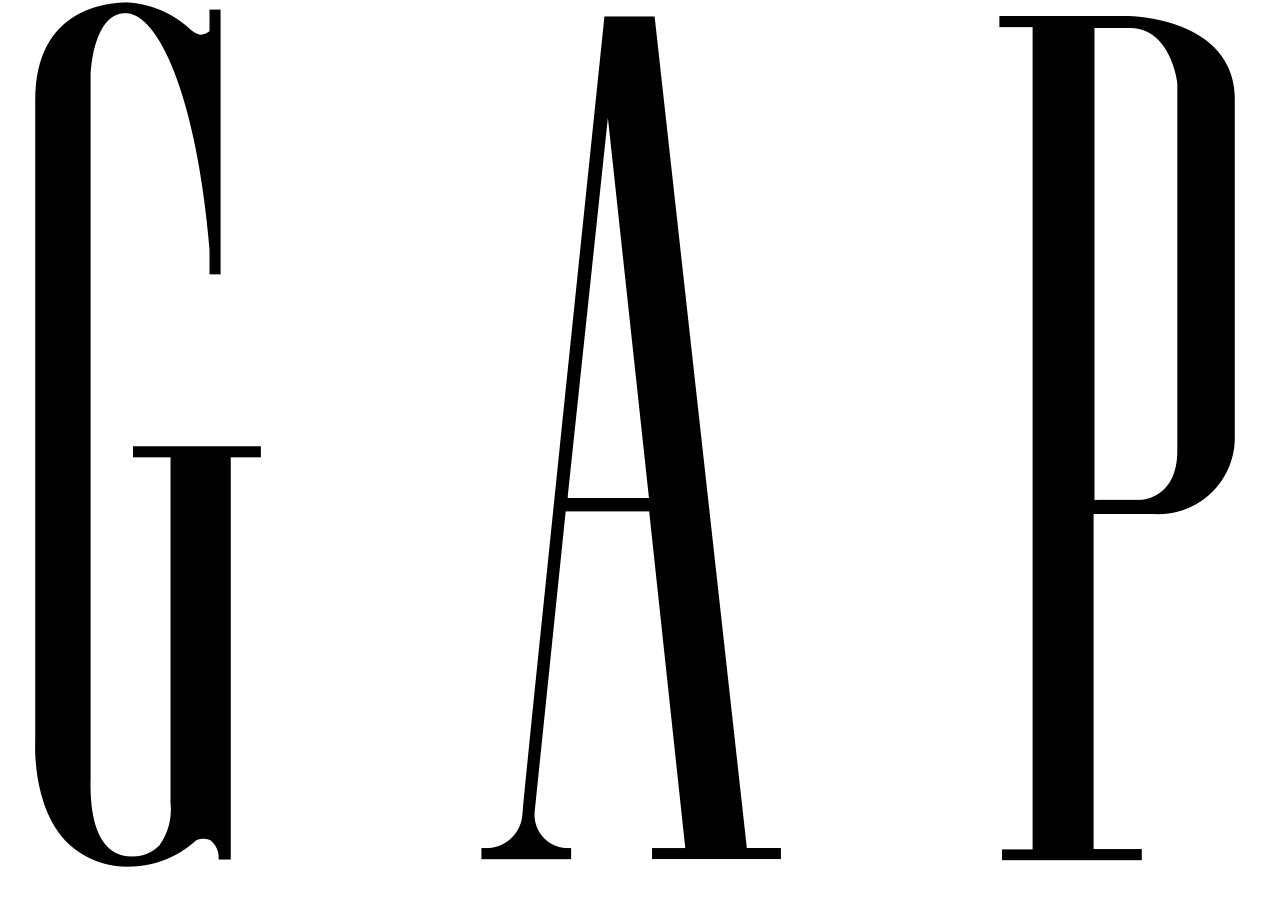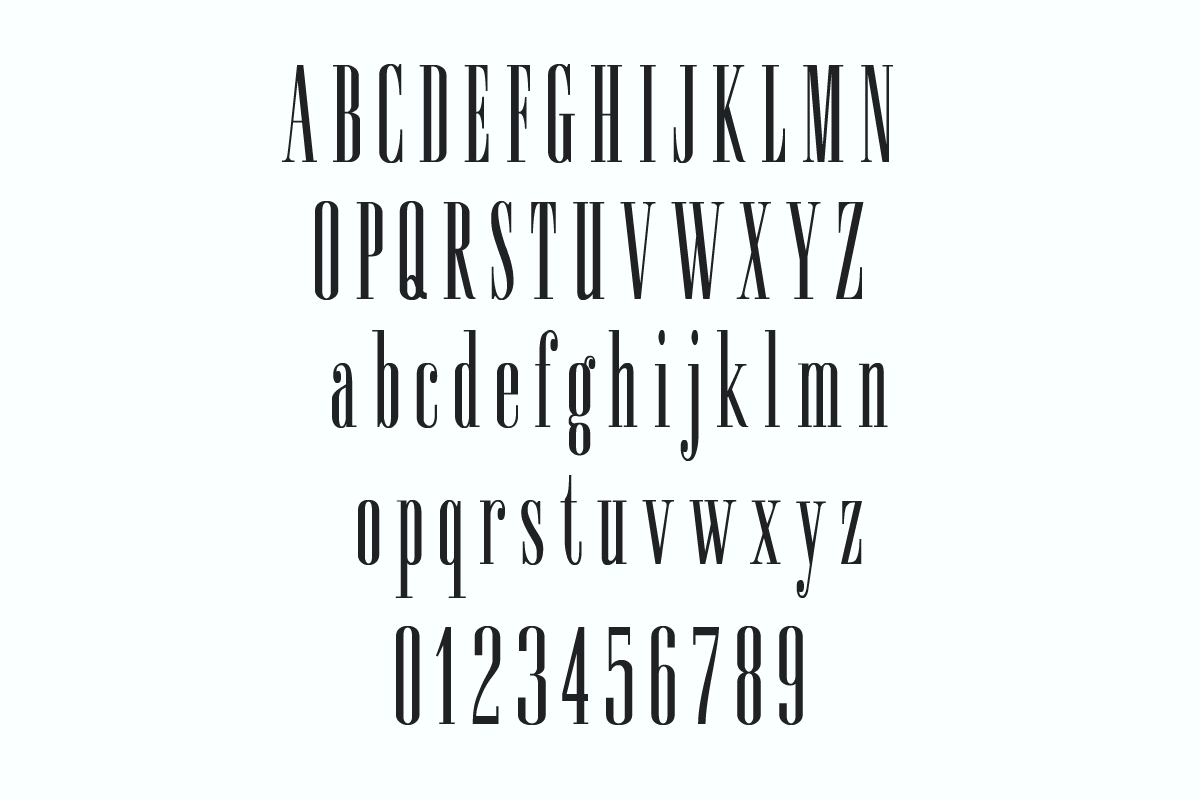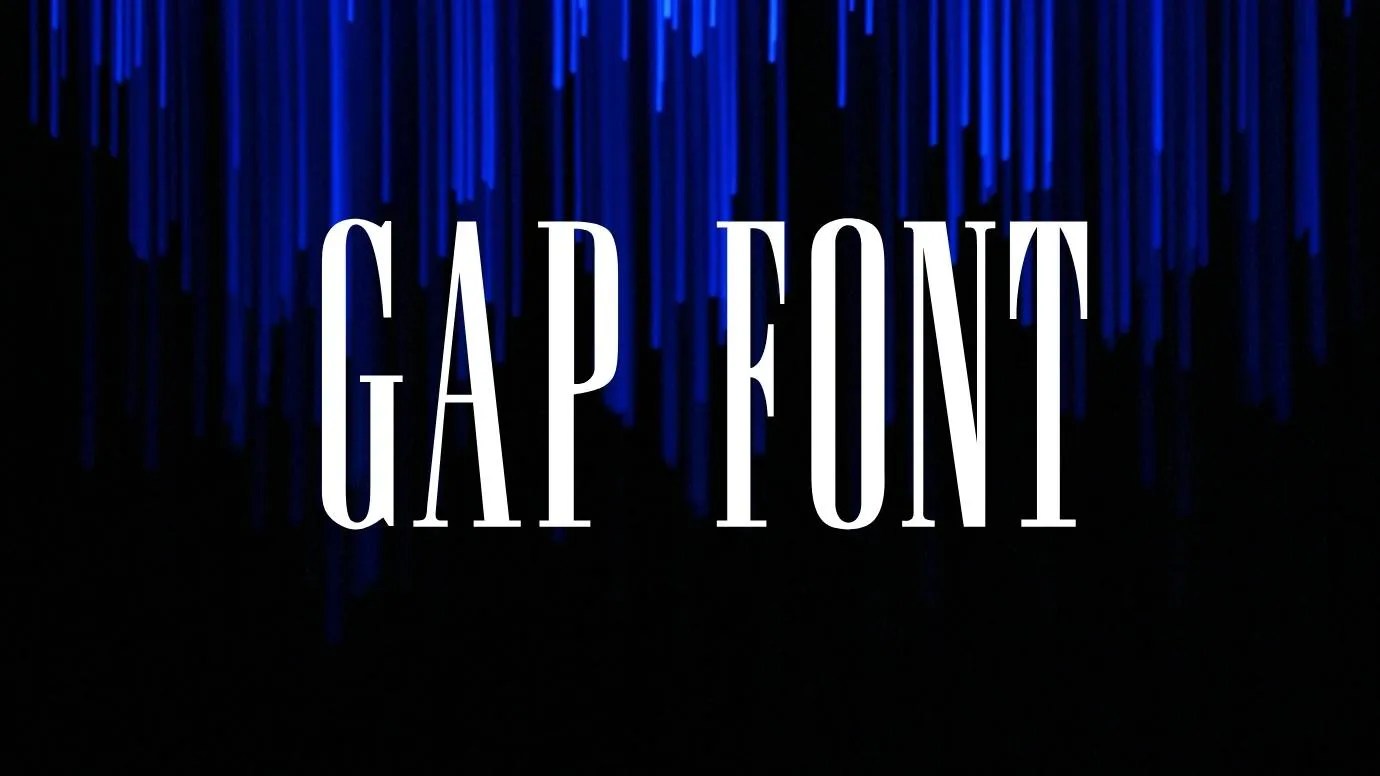
What Font Does Gap Use . The closest font you can get for the gap logo is spire regular font. This is a commercial font and is. Gap brands include banana republic, old navy, piperlime, athleta etc. The gap font used in the logo is called 'spire regular.' grab a similar font and download the new gap logo for free—perfect for your next design project! How to download and use gap font ? Whatthefont is available for both ios and android devices. Identify fonts with our font finder tool using an image or photo. Click here to buy spire regular font. The site will redirect you to the front page where you will find the character map of. American multinational clothing and accessories retailer, gap, uses the font spire. Gap is an american clothing and accessories retailer founded in 1969. What is the gap logo font? The font used for gap logo is spire regular, which is a display serif font designed by ann pomeroy and published by grouptype. The font used for the gap logotype is very similar to. You can download gap font from font sherlock.
Click here to buy spire regular font. How to download and use gap font ? The site will redirect you to the front page where you will find the character map of. What font is used in the gap logo? Whatthefont is available for both ios and android devices. Gap is an american clothing and accessories retailer founded in 1969. The font used for the gap logotype is very similar to. The gap font used in the logo is called 'spire regular.' grab a similar font and download the new gap logo for free—perfect for your next design project! You can download gap font from font sherlock. American multinational clothing and accessories retailer, gap, uses the font spire.
What Font Does Gap Use American multinational clothing and accessories retailer, gap, uses the font spire. Whatthefont is available for both ios and android devices. The font used for gap logo is spire regular, which is a display serif font designed by ann pomeroy and published by grouptype. Enter your own text and play with font size for the full experience. The gap font used in the logo is called 'spire regular.' grab a similar font and download the new gap logo for free—perfect for your next design project! You can download gap font from font sherlock. What font does gap use? Identify fonts with our font finder tool using an image or photo. The closest font you can get for the gap logo is spire regular font. What font is used in the gap logo? Gap brands include banana republic, old navy, piperlime, athleta etc. The font used for the gap logotype is very similar to. Gap is an american clothing and accessories retailer founded in 1969. This is a commercial font and is. “spire regular” is the font used in the gap logo. American multinational clothing and accessories retailer, gap, uses the font spire.
Gap Font & Logo Free Download (Gap Apparel) What Font Does Gap Use What is the gap logo font? The font used for gap logo is spire regular, which is a display serif font designed by ann pomeroy and published by grouptype. You can download gap font from font sherlock. The closest font you can get for the gap logo is spire regular font. The font used for the gap logotype is very. What Font Does Gap Use.
Fill In The Gaps Font Chequered Ink FontSpace What Font Does Gap Use Whatthefont is available for both ios and android devices. American multinational clothing and accessories retailer, gap, uses the font spire. The gap font used in the logo is called 'spire regular.' grab a similar font and download the new gap logo for free—perfect for your next design project! Click here to buy spire regular font. Gap is an american clothing. What Font Does Gap Use.
Gaps Font What Font Does Gap Use What is the gap logo font? The font used for gap logo is spire regular, which is a display serif font designed by ann pomeroy and published by grouptype. American multinational clothing and accessories retailer, gap, uses the font spire. How to download and use gap font ? Enter your own text and play with font size for the full. What Font Does Gap Use.
GAP Font Download Free What Font Does Gap Use The site will redirect you to the front page where you will find the character map of. American multinational clothing and accessories retailer, gap, uses the font spire. The closest font you can get for the gap logo is spire regular font. Gap is an american clothing and accessories retailer founded in 1969. Identify fonts with our font finder tool. What Font Does Gap Use.
Alphabet with gap sans serif font futuristic Vector Image What Font Does Gap Use The font used for gap logo is spire regular, which is a display serif font designed by ann pomeroy and published by grouptype. This is a commercial font and is. What is the gap logo font? The gap font used in the logo is called 'spire regular.' grab a similar font and download the new gap logo for free—perfect for. What Font Does Gap Use.
Fill In The Gaps Font What Font Does Gap Use Gap brands include banana republic, old navy, piperlime, athleta etc. “spire regular” is the font used in the gap logo. This font is designed by ann pomeroy and published by. What font is used in the gap logo? The font used for the gap logotype is very similar to. Gap is an american clothing and accessories retailer founded in 1969.. What Font Does Gap Use.
Gaps Font Download Free for Desktop & font What Font Does Gap Use American multinational clothing and accessories retailer, gap, uses the font spire. Identify fonts with our font finder tool using an image or photo. The font used for gap logo is spire regular, which is a display serif font designed by ann pomeroy and published by grouptype. The closest font you can get for the gap logo is spire regular font.. What Font Does Gap Use.
GAP Font Download Free What Font Does Gap Use Identify fonts with our font finder tool using an image or photo. Gap brands include banana republic, old navy, piperlime, athleta etc. The font used for gap logo is spire regular, which is a display serif font designed by ann pomeroy and published by grouptype. This is a commercial font and is. The site will redirect you to the front. What Font Does Gap Use.
Fill In The Gaps Font Download What Font Does Gap Use Click here to buy spire regular font. How to download and use gap font ? The gap font used in the logo is called 'spire regular.' grab a similar font and download the new gap logo for free—perfect for your next design project! What is the gap logo font? The font used for the gap logotype is very similar to.. What Font Does Gap Use.
From blog.logomyway.com
Gap logo and some history behind the brand LogoMyWay What Font Does Gap Use The font used for the gap logotype is very similar to. Identify fonts with our font finder tool using an image or photo. This font is designed by ann pomeroy and published by. What font is used in the gap logo? Whatthefont is available for both ios and android devices. This is a commercial font and is. The closest font. What Font Does Gap Use.
Gaps Font Download What Font Does Gap Use The gap font used in the logo is called 'spire regular.' grab a similar font and download the new gap logo for free—perfect for your next design project! Gap brands include banana republic, old navy, piperlime, athleta etc. This font is designed by ann pomeroy and published by. Identify fonts with our font finder tool using an image or photo.. What Font Does Gap Use.
From wallpapers.com
Download Gap Lettering Logo Wallpaper What Font Does Gap Use The font used for gap logo is spire regular, which is a display serif font designed by ann pomeroy and published by grouptype. What font is used in the gap logo? How to download and use gap font ? What is the gap logo font? Whatthefont is available for both ios and android devices. Gap is an american clothing and. What Font Does Gap Use.
Gaps Font FontYukle What Font Does Gap Use What font does gap use? Gap brands include banana republic, old navy, piperlime, athleta etc. Whatthefont is available for both ios and android devices. Gap is an american clothing and accessories retailer founded in 1969. This font is designed by ann pomeroy and published by. Click here to buy spire regular font. The closest font you can get for the. What Font Does Gap Use.
Initial Letter GAP Logo Template Design Stock Vector Illustration of What Font Does Gap Use You can download gap font from font sherlock. The gap font used in the logo is called 'spire regular.' grab a similar font and download the new gap logo for free—perfect for your next design project! The closest font you can get for the gap logo is spire regular font. Whatthefont is available for both ios and android devices. The. What Font Does Gap Use.
Gap Line Bold English Font, Graphical Decorative Alphabet Stock Vector What Font Does Gap Use How to download and use gap font ? “spire regular” is the font used in the gap logo. What font is used in the gap logo? Gap brands include banana republic, old navy, piperlime, athleta etc. This is a commercial font and is. Enter your own text and play with font size for the full experience. The closest font you. What Font Does Gap Use.
Gap Font FREE Download Hyperpix What Font Does Gap Use American multinational clothing and accessories retailer, gap, uses the font spire. Enter your own text and play with font size for the full experience. Click here to buy spire regular font. What font does gap use? What font is used in the gap logo? Identify fonts with our font finder tool using an image or photo. The font used for. What Font Does Gap Use.
Gap Font Free Download What Font Does Gap Use Whatthefont is available for both ios and android devices. Enter your own text and play with font size for the full experience. “spire regular” is the font used in the gap logo. The font used for gap logo is spire regular, which is a display serif font designed by ann pomeroy and published by grouptype. You can download gap font. What Font Does Gap Use.
Gaps Regular Download For Free, View Sample Text, Rating And More On What Font Does Gap Use Identify fonts with our font finder tool using an image or photo. Gap brands include banana republic, old navy, piperlime, athleta etc. American multinational clothing and accessories retailer, gap, uses the font spire. The gap font used in the logo is called 'spire regular.' grab a similar font and download the new gap logo for free—perfect for your next design. What Font Does Gap Use.
Gap font free download • What Font Does Gap Use The closest font you can get for the gap logo is spire regular font. The gap font used in the logo is called 'spire regular.' grab a similar font and download the new gap logo for free—perfect for your next design project! The font used for the gap logotype is very similar to. You can download gap font from font. What Font Does Gap Use.
The Gap Font by Wanida Toffy · Creative Fabrica What Font Does Gap Use Click here to buy spire regular font. Whatthefont is available for both ios and android devices. What is the gap logo font? Identify fonts with our font finder tool using an image or photo. You can download gap font from font sherlock. The font used for gap logo is spire regular, which is a display serif font designed by ann. What Font Does Gap Use.
Bold Gap Font Set Stock Vector (Royalty Free) 1237219768 Shutterstock What Font Does Gap Use Gap brands include banana republic, old navy, piperlime, athleta etc. You can download gap font from font sherlock. This is a commercial font and is. Enter your own text and play with font size for the full experience. Identify fonts with our font finder tool using an image or photo. How to download and use gap font ? What is. What Font Does Gap Use.
Black Gap Sans Font Download What Font Does Gap Use The gap font used in the logo is called 'spire regular.' grab a similar font and download the new gap logo for free—perfect for your next design project! You can download gap font from font sherlock. The closest font you can get for the gap logo is spire regular font. Enter your own text and play with font size for. What Font Does Gap Use.
Gaps font Font Tr What Font Does Gap Use The closest font you can get for the gap logo is spire regular font. You can download gap font from font sherlock. Enter your own text and play with font size for the full experience. Whatthefont is available for both ios and android devices. Identify fonts with our font finder tool using an image or photo. This is a commercial. What Font Does Gap Use.
Gap Font & Logo Free Download (Gap Apparel) What Font Does Gap Use What font does gap use? The font used for gap logo is spire regular, which is a display serif font designed by ann pomeroy and published by grouptype. American multinational clothing and accessories retailer, gap, uses the font spire. Gap brands include banana republic, old navy, piperlime, athleta etc. What is the gap logo font? The site will redirect you. What Font Does Gap Use.
Gap Logo Brand Symbol Black Design Clothes Fashion Vector Illustration What Font Does Gap Use “spire regular” is the font used in the gap logo. The site will redirect you to the front page where you will find the character map of. What font is used in the gap logo? The gap font used in the logo is called 'spire regular.' grab a similar font and download the new gap logo for free—perfect for your. What Font Does Gap Use.
Gaps font download What Font Does Gap Use Click here to buy spire regular font. The gap font used in the logo is called 'spire regular.' grab a similar font and download the new gap logo for free—perfect for your next design project! Enter your own text and play with font size for the full experience. The font used for gap logo is spire regular, which is a. What Font Does Gap Use.
Alphabet with gap, sans serif font, black letters and numbers. Stock What Font Does Gap Use How to download and use gap font ? Click here to buy spire regular font. What font is used in the gap logo? The site will redirect you to the front page where you will find the character map of. Identify fonts with our font finder tool using an image or photo. American multinational clothing and accessories retailer, gap, uses. What Font Does Gap Use.
Gap Sans font What Font Does Gap Use This is a commercial font and is. Whatthefont is available for both ios and android devices. The closest font you can get for the gap logo is spire regular font. Enter your own text and play with font size for the full experience. Gap is an american clothing and accessories retailer founded in 1969. This font is designed by ann. What Font Does Gap Use.
Gaps characters What Font Does Gap Use What font is used in the gap logo? What is the gap logo font? “spire regular” is the font used in the gap logo. This is a commercial font and is. Click here to buy spire regular font. This font is designed by ann pomeroy and published by. The gap font used in the logo is called 'spire regular.' grab. What Font Does Gap Use.
Gap Logo Symbol Brand White Design Clothes Fashion Vector Illustration What Font Does Gap Use The gap font used in the logo is called 'spire regular.' grab a similar font and download the new gap logo for free—perfect for your next design project! Enter your own text and play with font size for the full experience. Whatthefont is available for both ios and android devices. This font is designed by ann pomeroy and published by.. What Font Does Gap Use.
Gap Font Free Download What Font Does Gap Use Whatthefont is available for both ios and android devices. The font used for the gap logotype is very similar to. Identify fonts with our font finder tool using an image or photo. Gap is an american clothing and accessories retailer founded in 1969. Gap brands include banana republic, old navy, piperlime, athleta etc. American multinational clothing and accessories retailer, gap,. What Font Does Gap Use.
Gaps Font What Font Does Gap Use American multinational clothing and accessories retailer, gap, uses the font spire. Enter your own text and play with font size for the full experience. The font used for the gap logotype is very similar to. Gap is an american clothing and accessories retailer founded in 1969. The site will redirect you to the front page where you will find the. What Font Does Gap Use.
Gap font free download • What Font Does Gap Use Identify fonts with our font finder tool using an image or photo. Gap is an american clothing and accessories retailer founded in 1969. Gap brands include banana republic, old navy, piperlime, athleta etc. American multinational clothing and accessories retailer, gap, uses the font spire. The gap font used in the logo is called 'spire regular.' grab a similar font and. What Font Does Gap Use.
GAP typeface on Behance What Font Does Gap Use Gap is an american clothing and accessories retailer founded in 1969. How to download and use gap font ? American multinational clothing and accessories retailer, gap, uses the font spire. The gap font used in the logo is called 'spire regular.' grab a similar font and download the new gap logo for free—perfect for your next design project! This is. What Font Does Gap Use.
Download Gaps Font Free Font Download What Font Does Gap Use The gap font used in the logo is called 'spire regular.' grab a similar font and download the new gap logo for free—perfect for your next design project! You can download gap font from font sherlock. How to download and use gap font ? Gap is an american clothing and accessories retailer founded in 1969. What font is used in. What Font Does Gap Use.